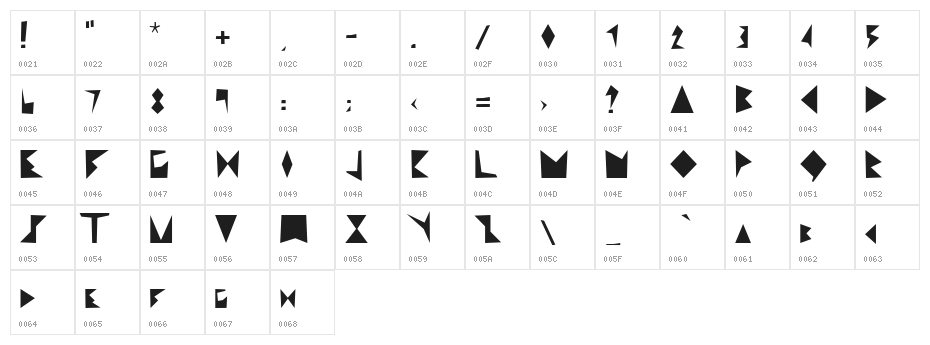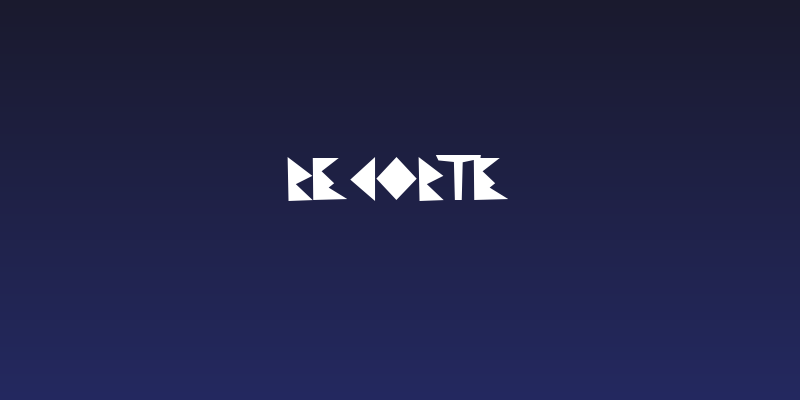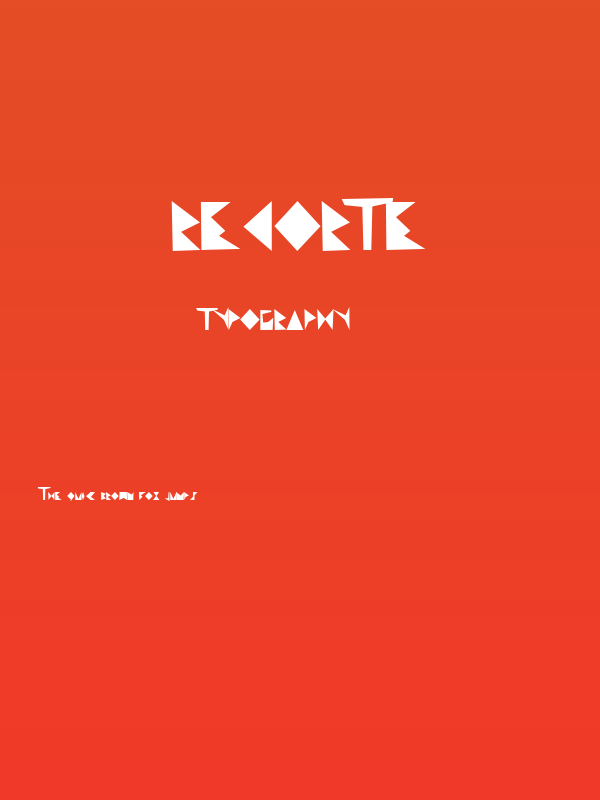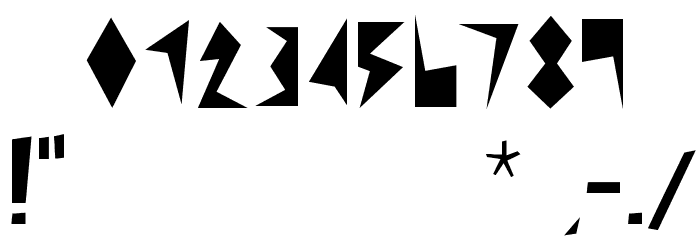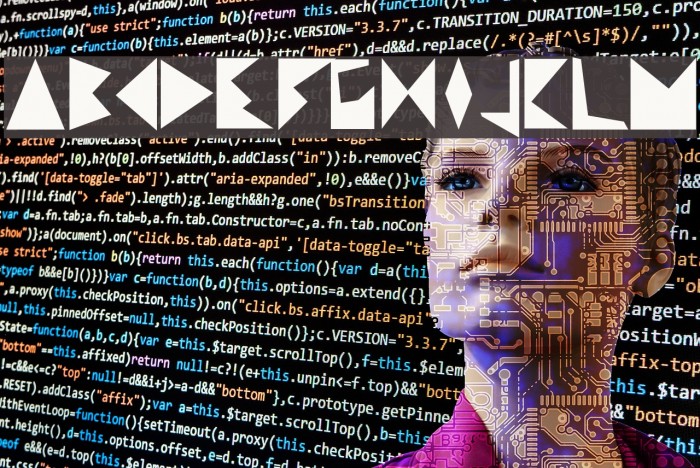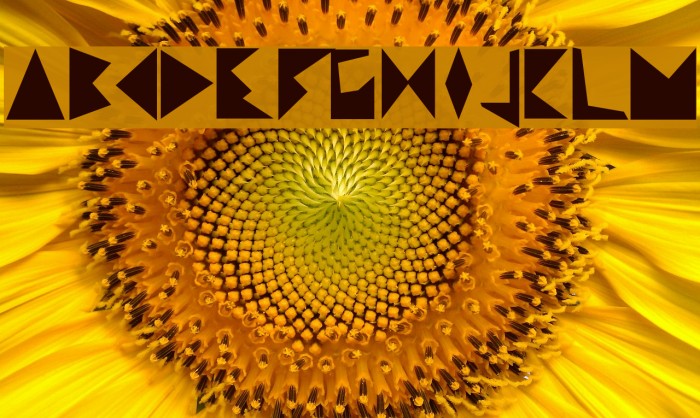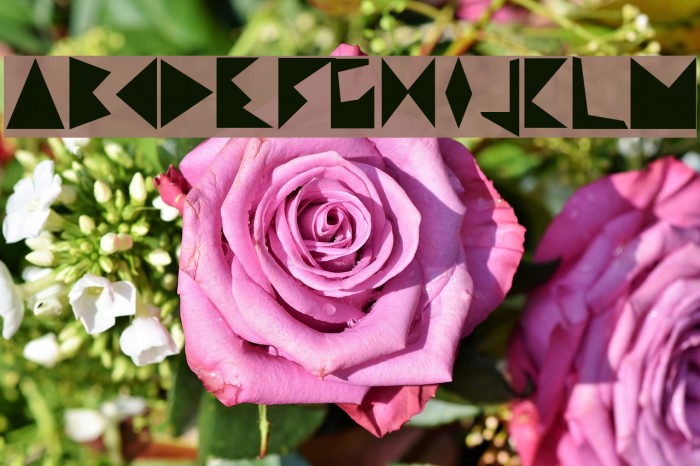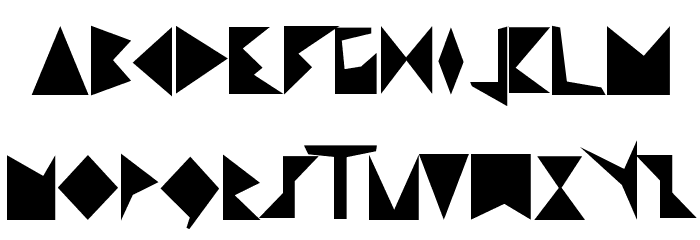
Recorte Font
Recorte Description
This font features a highly geometric and abstract design, characterized by sharp angles and bold, solid shapes. Each letter is constructed from a series of triangles and polygons, creating a fragmented and edgy appearance. The uppercase and lowercase letters maintain a consistent style, with the lowercase being slightly smaller but equally bold. Numbers and special characters follow the same design principles, ensuring uniformity across all characters. The font's unique style makes it stand out, offering a modern and artistic flair that is both eye-catching and unconventional.
| Proposed Projects | Ideal for modern art projects, edgy branding, album covers, and creative posters. |